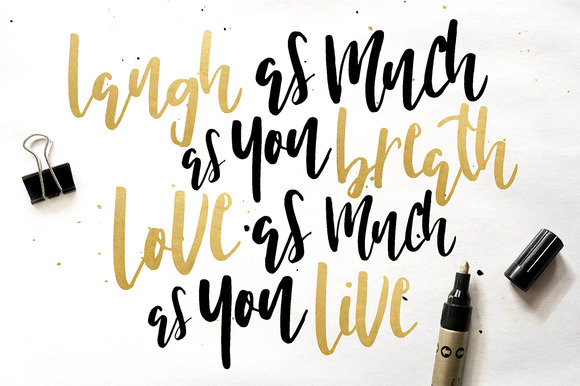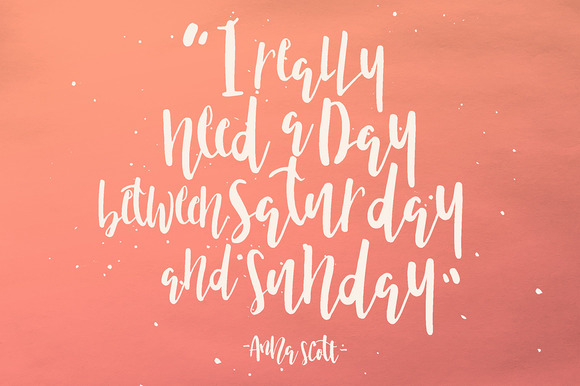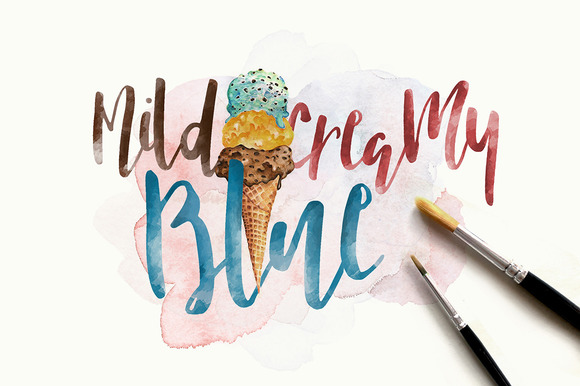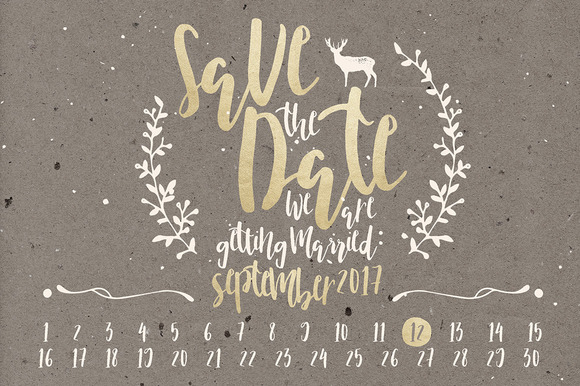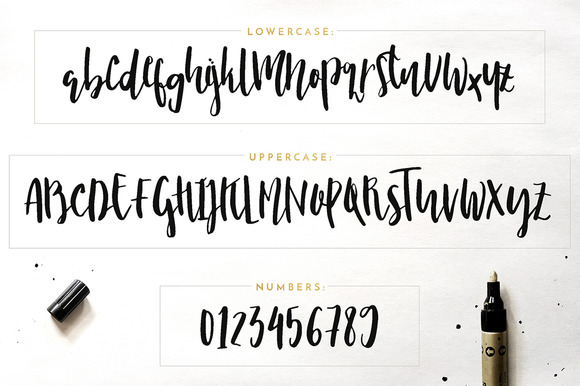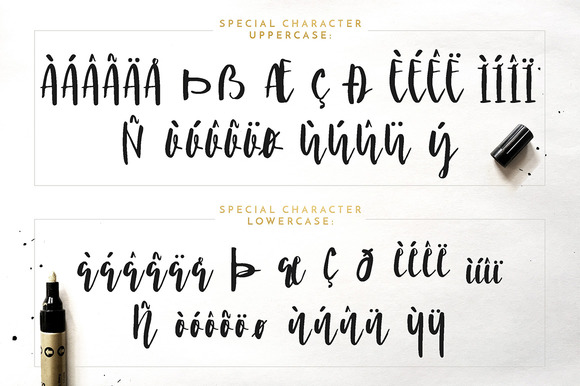
Introduction to Nicoline Font
Have you ever stumbled upon the perfect font while working on a creative project and felt like your design just came alive? For designers, discovering the right font can be a game-changer. It’s that moment when your ideas start to flow, and your design begins to take shape. That’s exactly what the Nicoline Font offers – a dynamic and high-quality script font that can elevate your designs to the next level.
Whether you’re working on a wedding invitation, a greeting card, or a design project, the Nicoline Font is an excellent choice. Its versatility and aesthetic appeal make it a valuable resource for designers. What’s more, this font is available for free download, allowing you to incorporate it into your creative projects without any hassle. With its transparent background, you can easily place it over any design element, making it a seamless addition to your work.
So, what sets the Nicoline Font apart? Its unique character and high-quality design make it a standout in the world of design resources. In this article, we’ll delve deeper into the features and uses of the Nicoline Font, and explore why it’s a must-have for any designer looking to add a touch of elegance to their work.
Key Features of Nicoline Font
- High-quality design: Nicoline Font is designed to provide a professional and elegant look for any creative project.
- Unique characteristics: The Nicoline Font features a unique blend of modern and elegant design elements, making it perfect for a variety of creative projects.
- Design resource: This font can be used as a design resource for a wide range of creative projects, including logos, typography, and other visual elements.
Honest Review: Nicoline Font
As a designer, I’m always on the lookout for high-quality design resources to elevate my creative projects. Recently, I stumbled upon the Nicoline Font, and I must say it’s a gem! ✨
- Beautiful handwriting-style font perfect for adding a personal touch to my designs.
- Wide range of styles and weights, making it versatile for various creative projects.
However, there are a few limitations to keep in mind: ⚠️
- The font’s high quality does come at a cost: the file size can be quite large, which might slow down your design process.
- The transparent background option can be a bit tricky to work with, especially when combining it with other design elements.
Overall, I’m impressed with the Nicoline Font. Its unique style and high quality make it a valuable addition to my design arsenal. While it has some limitations, I believe it’s worth the effort to learn how to work with it effectively.
Nicoline Font
The Nicoline Font is a high-quality, free download design resource ideal for various creative projects. It features a transparent background, making it perfect for overlaying text or graphics.
The Nicoline Font is suitable for a variety of projects, including logos, business cards, brochures, and social media graphics. Its high-quality design and transparent background make it an ideal choice for creative professionals and hobbyists alike.
Tips for Getting the Most Out of Nicoline Font
To get the most out of the Nicoline Font, experiment with different font sizes, colors, and alignments to create visually appealing designs. You can also combine the Nicoline Font with other design elements, such as images and graphics, to add depth and interest to your projects.
Does the Nicoline Font have a transparent background or is it a solid color?
The Nicoline Font typically has a transparent background, making it suitable for use on various backgrounds and design elements. However, some font versions may have a solid color or a colored outline, so it’s crucial to check the font’s characteristics before using it in your design project.